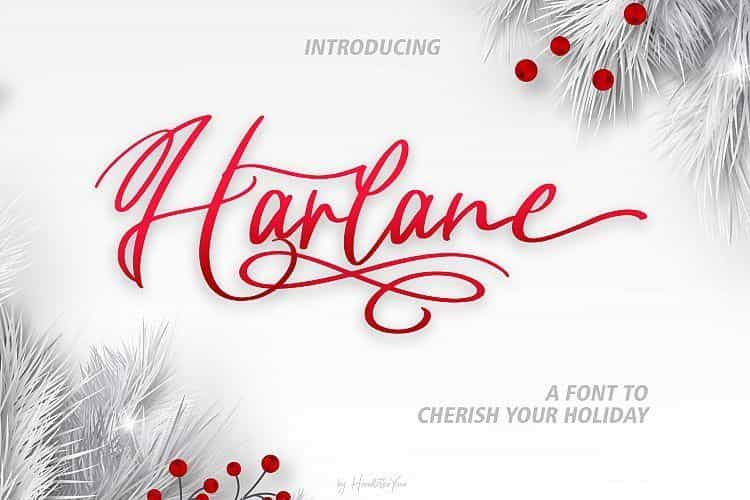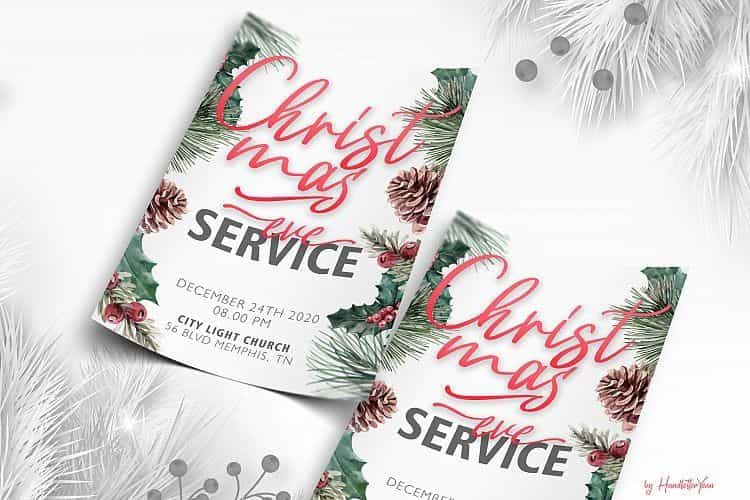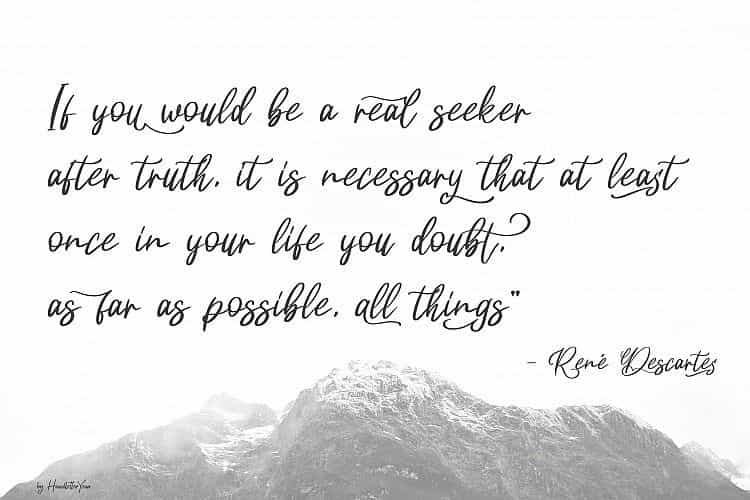
Discover Harlane Font, part of the Calligraphy Handwritten collection—a versatile and unique font perfect for adding a personal touch to your projects. Download it for free and enjoy crafting designs with style, from invitations to social media posts. This font is available exclusively for personal use, giving you the freedom to create without limits. Unlock your creativity with Harlane Font today!
Introducing Harlane Font, a new handwritten script font. This beautiful font is light and elegant, with its help you will be able to express your personality in any project. You can also use them to make a logo or use for small business, t-shirts, books, letterheads, advertising, websites, blogs, magazines and many others.